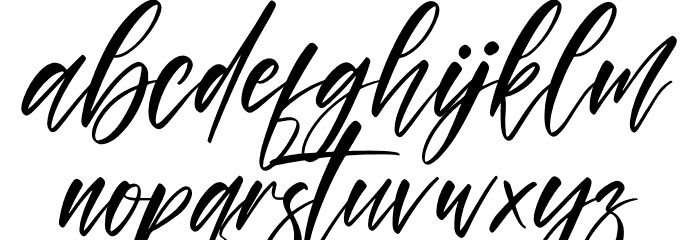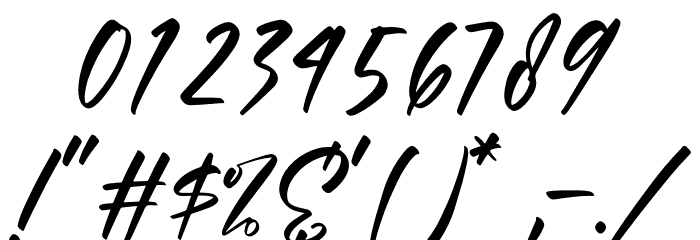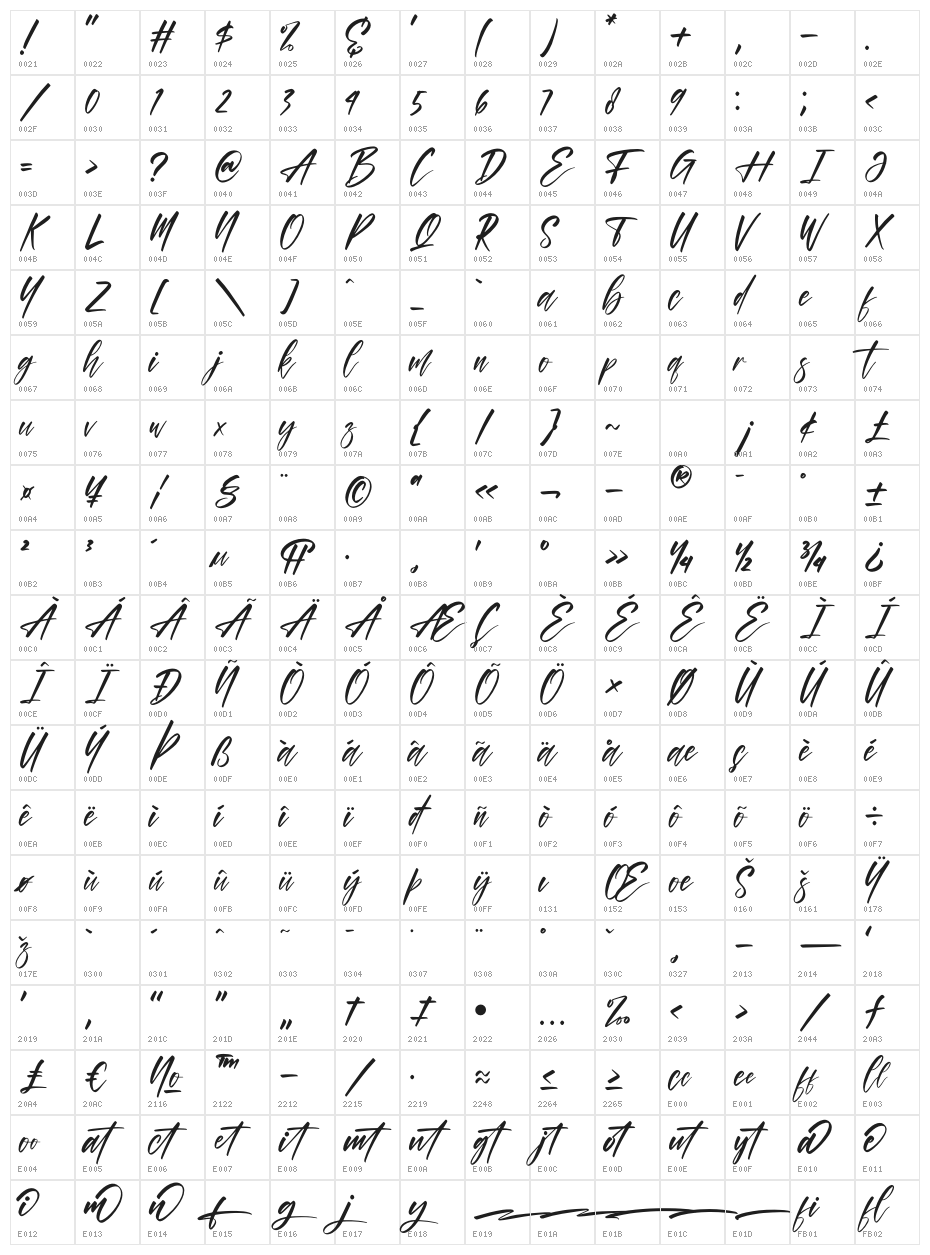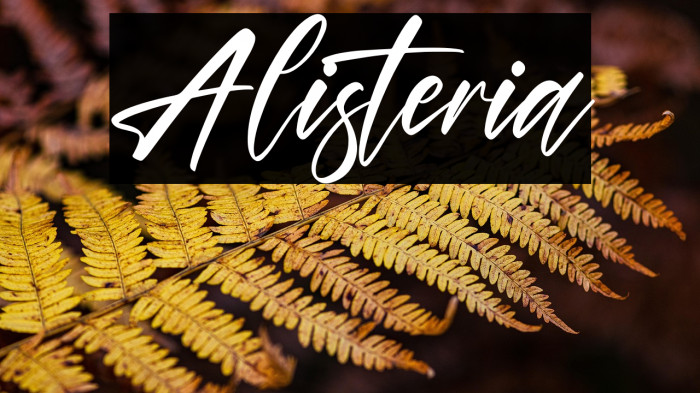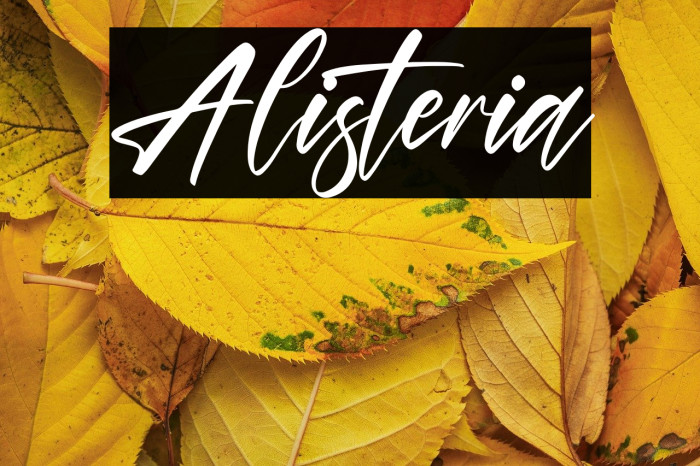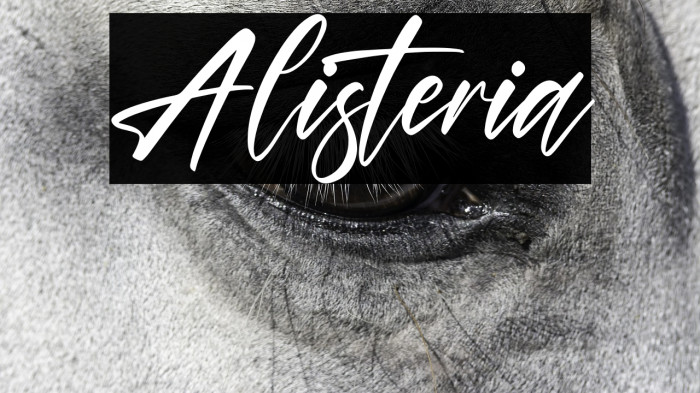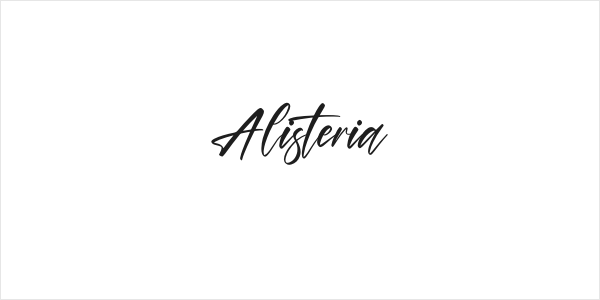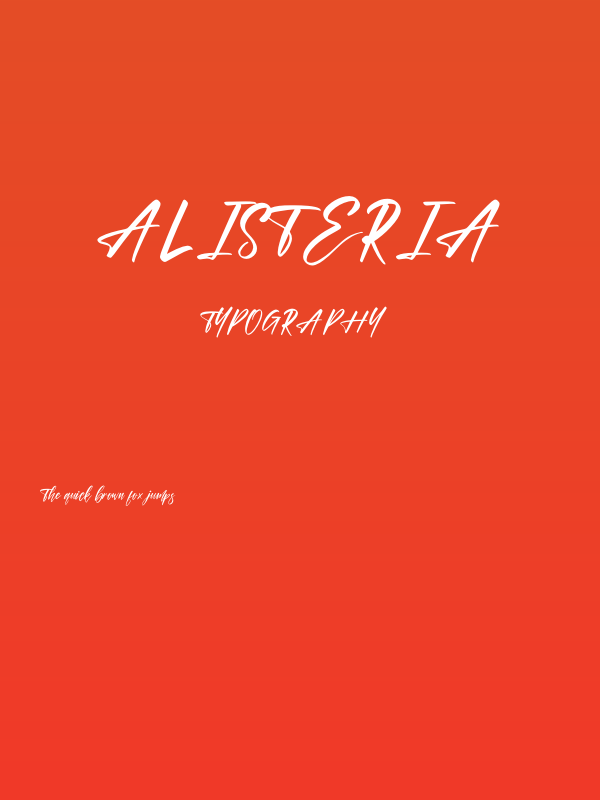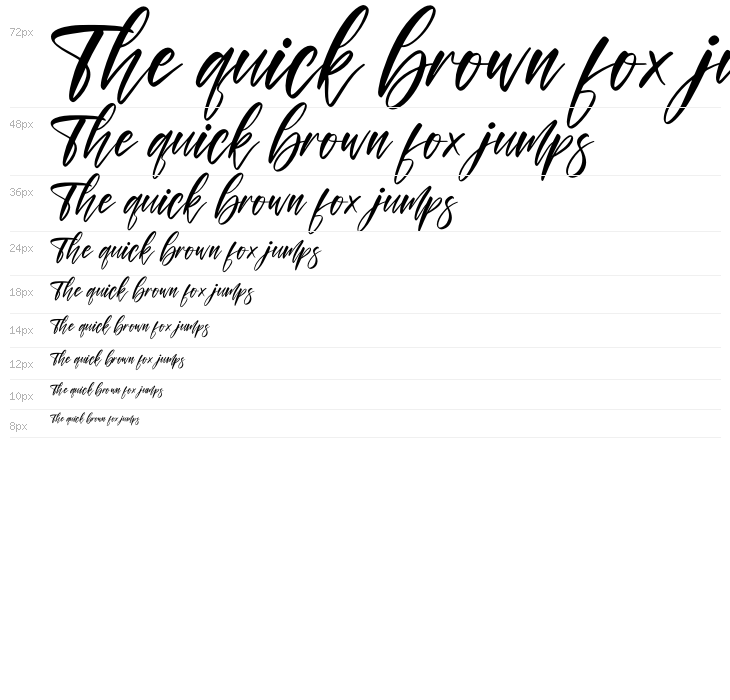
Alisteria Font
This font exhibits a dynamic and expressive handwritten style, characterized by its fluid and cursive strokes. The letters are slightly slanted, giving a sense of motion and elegance. The uppercase letters are bold and prominent, while the lowercase letters maintain a consistent flow, enhancing readability. The numerals and special characters are crafted with the same attention to detail, ensuring a cohesive look across all elements. This font's artistic flair makes it stand out, suitable for creative and informal applications.
A dynamic, expressive handwritten font with fluid, cursive strokes.
- Proposed Projects: Ideal for wedding invitations, greeting cards, branding projects, and social media graphics.
- Use Case: Logos, Headlines, Invitations